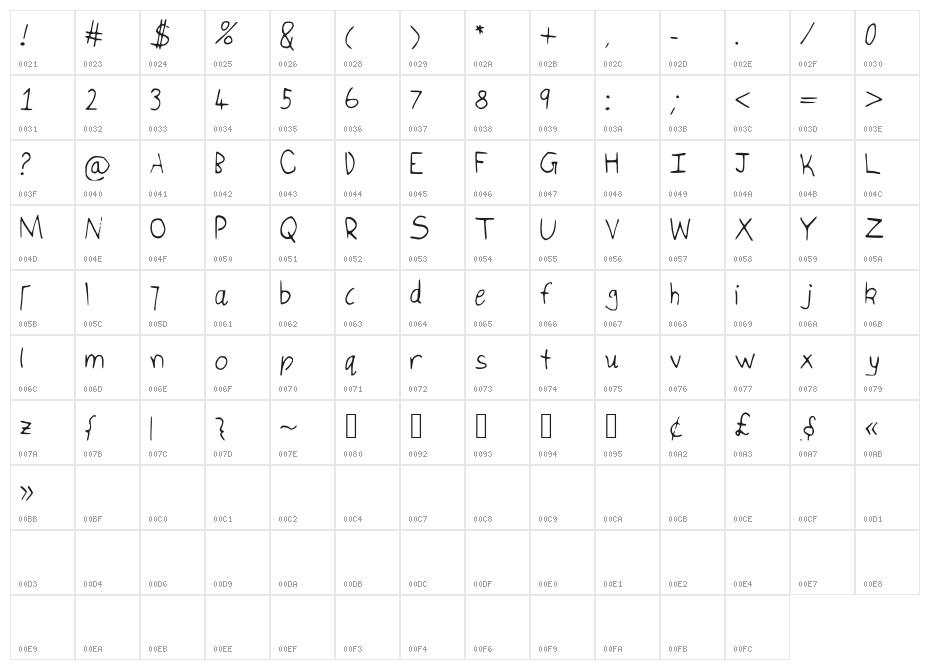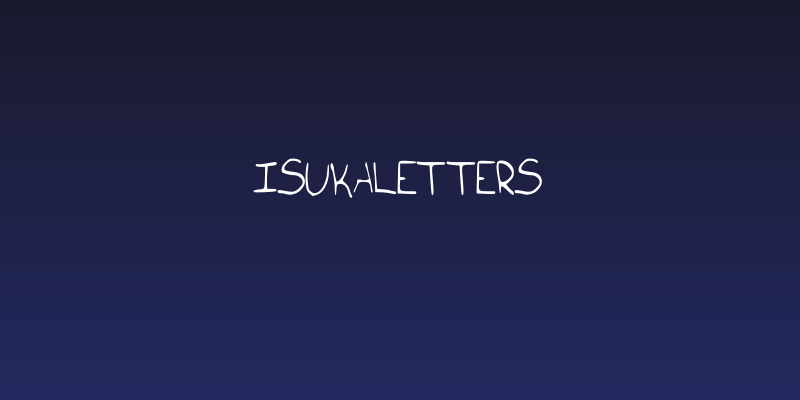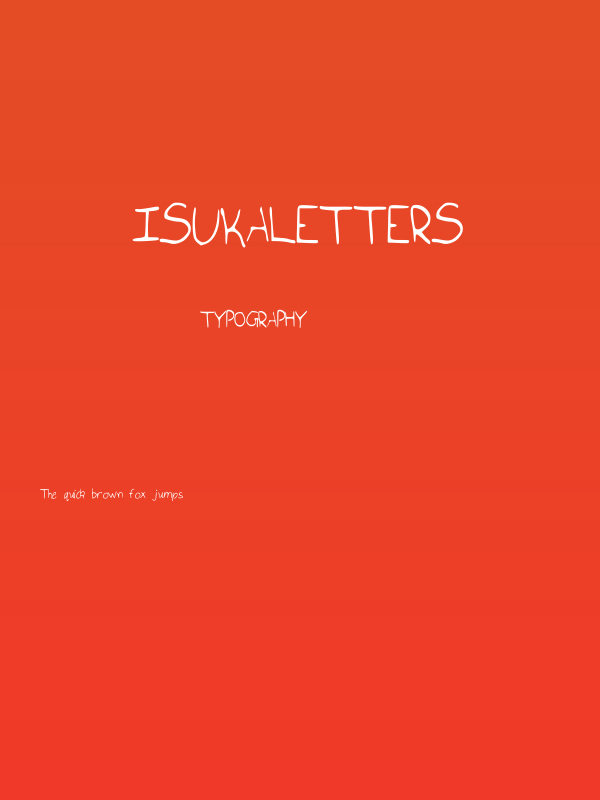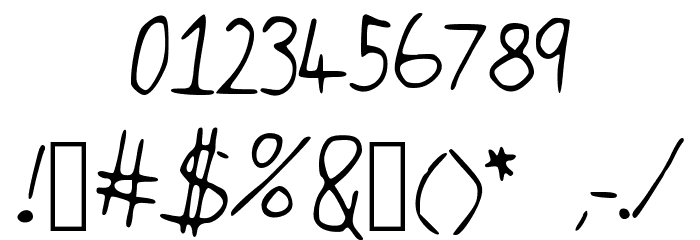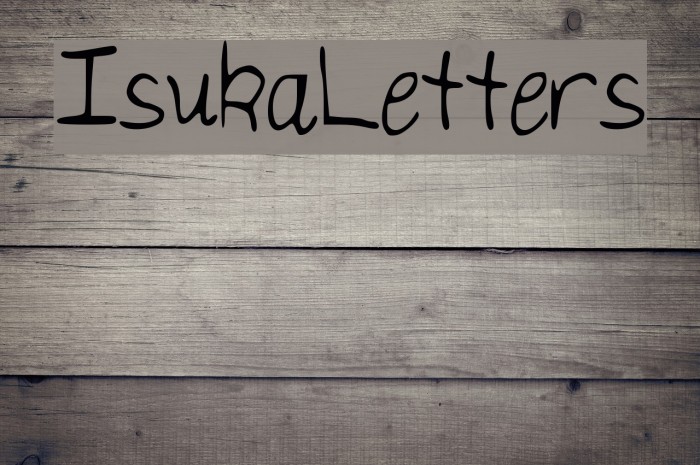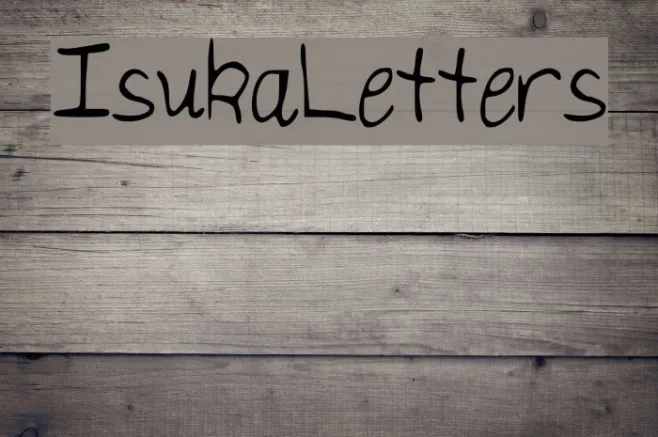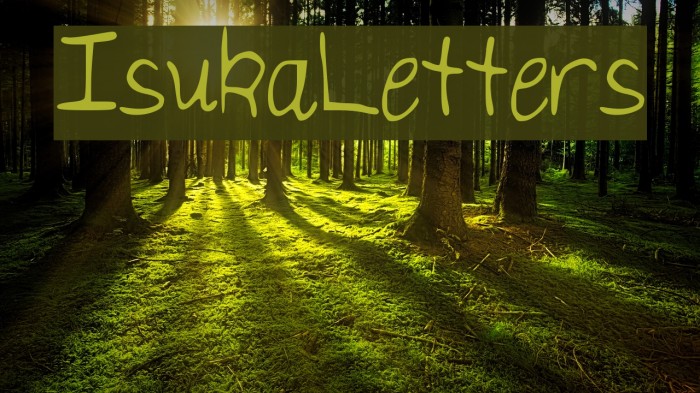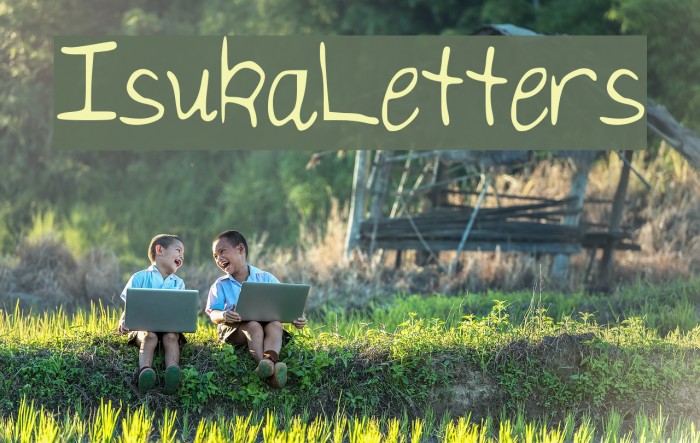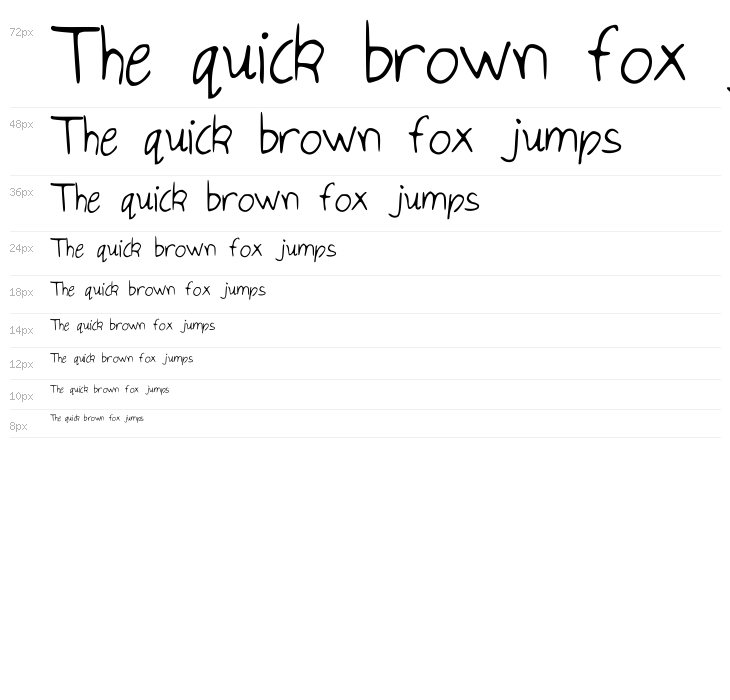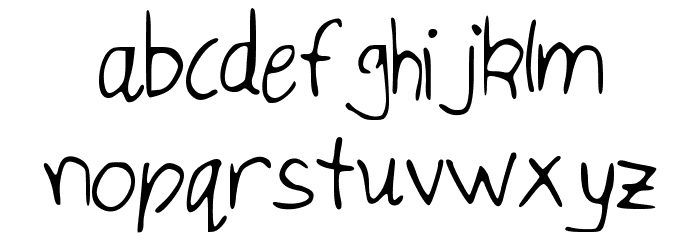
IsukaLetters Font
IsukaLetters Description
This font features a playful and casual handwritten style, characterized by its irregular strokes and slightly uneven baseline. The letters have a whimsical appearance, with varying stroke widths that add a dynamic and lively feel. The uppercase letters are bold and prominent, while the lowercase letters maintain a consistent flow, enhancing readability. The numerals are distinct and easily recognizable, complementing the overall informal aesthetic. Special characters are creatively designed, adding to the font's unique charm. This font is ideal for projects that require a personal touch or a fun, informal vibe.
| Proposed Projects | Ideal for greeting cards, children's books, playful branding, and creative posters. |